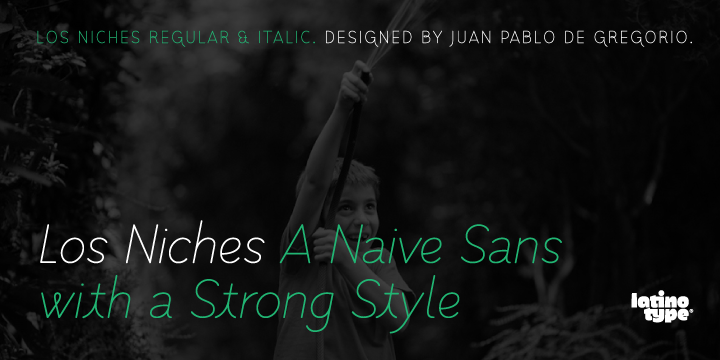
Los Niches Font excels in diverse design applications including boutique specialty shops, artisan niche markets, exclusive craft businesses, specialized service providers, custom design studios, unique product branding, intimate venue signage, and distinctive lifestyle brands that require niche sophistication and specialized elegance.
What makes Los Niches Font truly exciting is its authentic embodiment of niche market excellence and specialized craftsmanship that captures the essence of dedicated artisans and specialized businesses who create unique products and services for discerning customers who appreciate quality, authenticity, and the personal attention found only in carefully curated niche markets. This distinctive typeface features carefully crafted letterforms with subtle artisanal details that evoke images of specialized workshops, curated boutiques, and the passionate dedication of craftspeople who perfect their skills in specific niches to serve customers seeking something truly special and authentic. The font's specialized character reflects the expertise and attention to detail that define successful niche businesses, making it perfect for brands that want to communicate specialized excellence, niche authority, and the unique value that comes from focused expertise and specialized knowledge. Its boutique appearance creates immediate associations with specialty markets and artisanal quality.
The Los Niches Font family includes multiple weights and specialized variations designed to enhance niche communication. The collection features Light, Regular, Medium, and Bold weights, each maintaining the font's characteristic specialized appeal while offering different levels of niche presence. The family also includes alternate characters with varying artisanal effects, boutique elements that simulate specialty craftsmanship, and stylistic sets that create distinctive text arrangements reflecting the uniqueness of niche markets. Additional features include contextual ligatures and specialty sets that create exclusive, specialized arrangements perfect for boutique and artisanal applications.
Specialty and artisan professionals consistently choose Los Niches Font Free Download for projects requiring authentic niche character and specialized credibility. The font's boutique nature makes it particularly effective for specialty shops, artisan businesses, and niche service providers targeting customers who appreciate specialized expertise and unique offerings. Its excellent readability across various applications ensures effective communication while maintaining the distinctive specialized character that conveys niche authority and boutique sophistication.
The advanced OpenType capabilities of Los Niches Font include contextual alternates, stylistic sets, and comprehensive character support that accommodates specialty terminology and niche expressions while preserving the font's authentic specialized character. The technical precision ensures consistent boutique appearance across different niche applications and specialty platforms.
For creative professionals seeking a typeface that embodies genuine niche heritage and specialized sophistication, Los Niches Font offers unparalleled boutique appeal and artisanal elegance. Its ability to convey specialized authority while maintaining functional communication makes it invaluable for specialty businesses, artisan markets, and niche service providers. The font's distinctive specialized character ensures memorable niche impact across all applications, creating powerful visual identity systems that celebrate the beauty of specialized expertise and the unique value that niche businesses bring to customers seeking authentic, specialized products and services that reflect true craftsmanship and dedicated expertise.